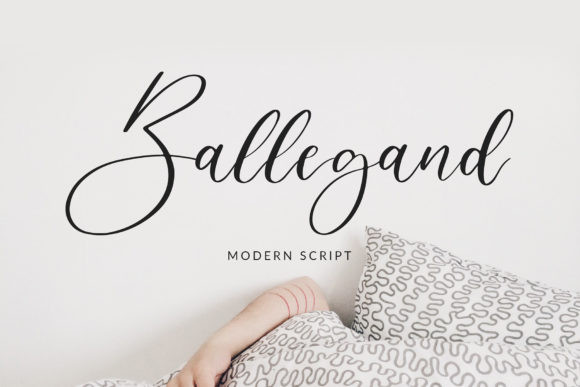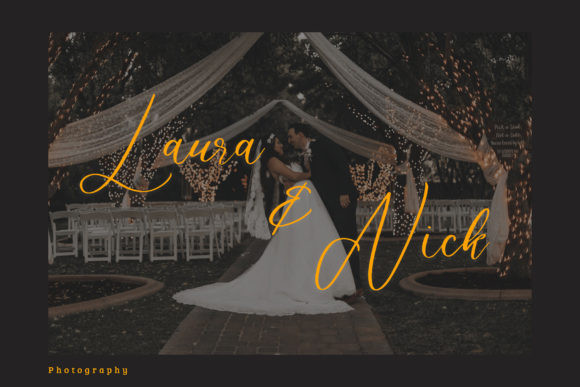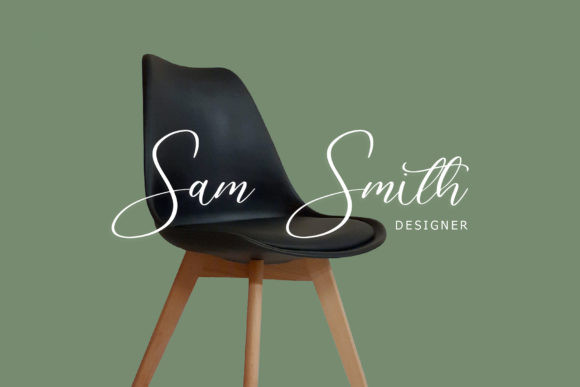
Ballegand Font
Ballegand is a beautiful, romantic and timeless handwritten font. Luxurious and dainty, this font is the best option for designing your favorite ideas!